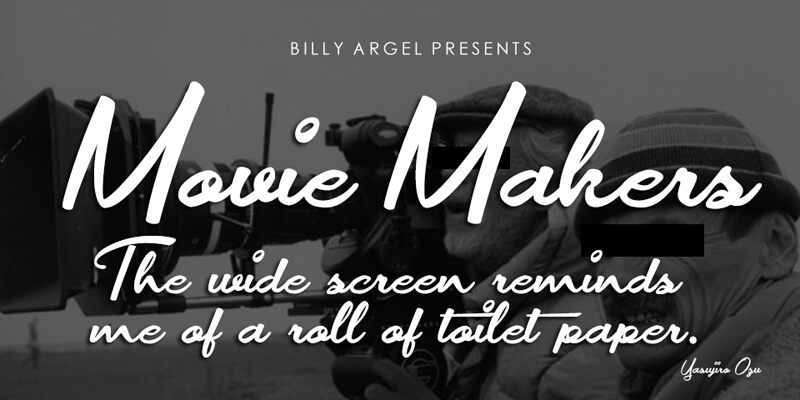
Movie Makers is a handwritten, marker-style font that exudes a dynamic and captivating energy. Designed by Billy Argel, this font's effortlessly expressive characters convey a sense of spontaneity and artistic flair.
The bold, variable strokes and organic forms lend a distinctly cinematic aesthetic, making it an ideal choice for movie titles, posters, and other creative projects with a focus on the moving image.
Its versatility extends beyond the silver screen, as Movie Makers can infuse a touch of cinematic charm into a wide range of design applications, from packaging and branding to editorial layouts and beyond.